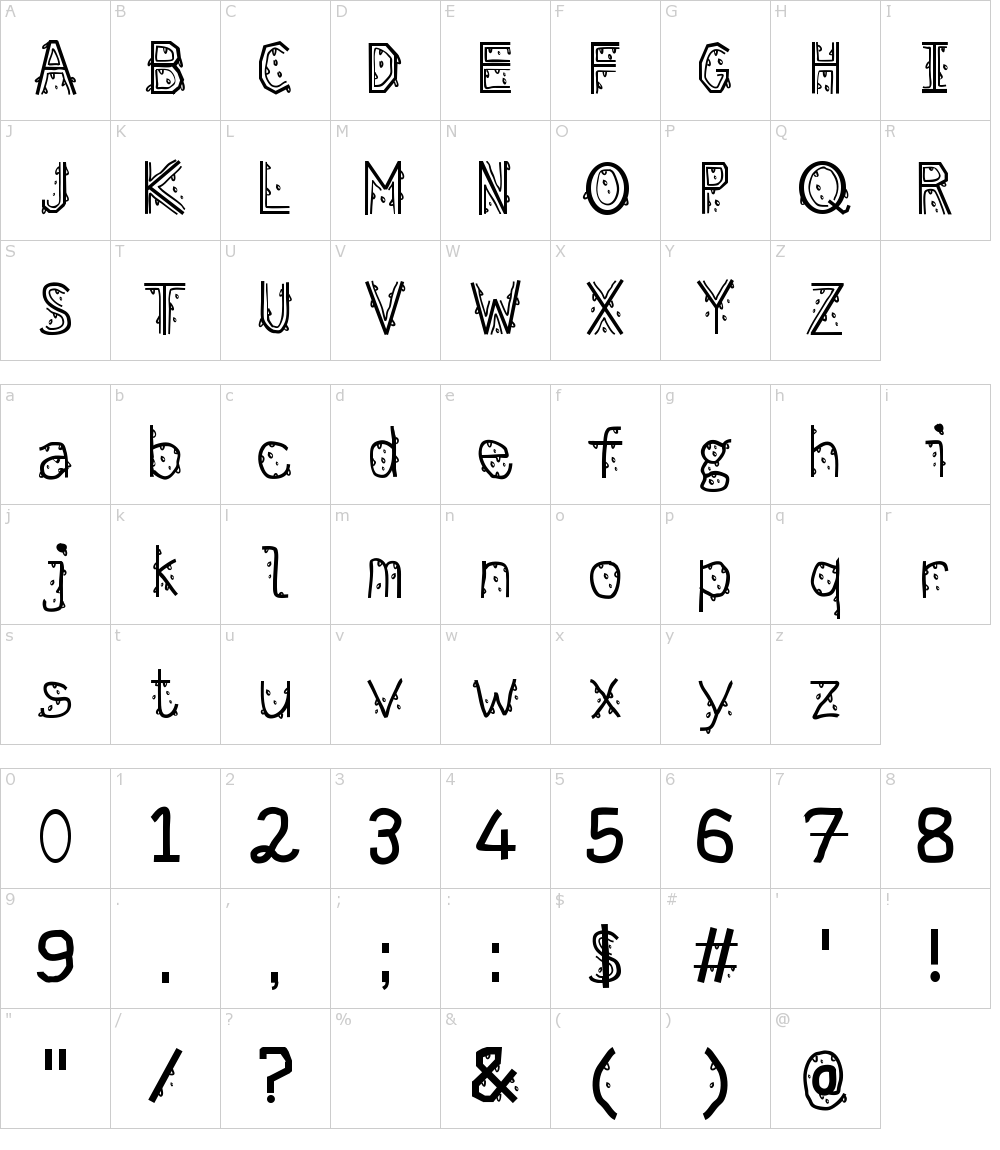
Melting Letters Font Generator
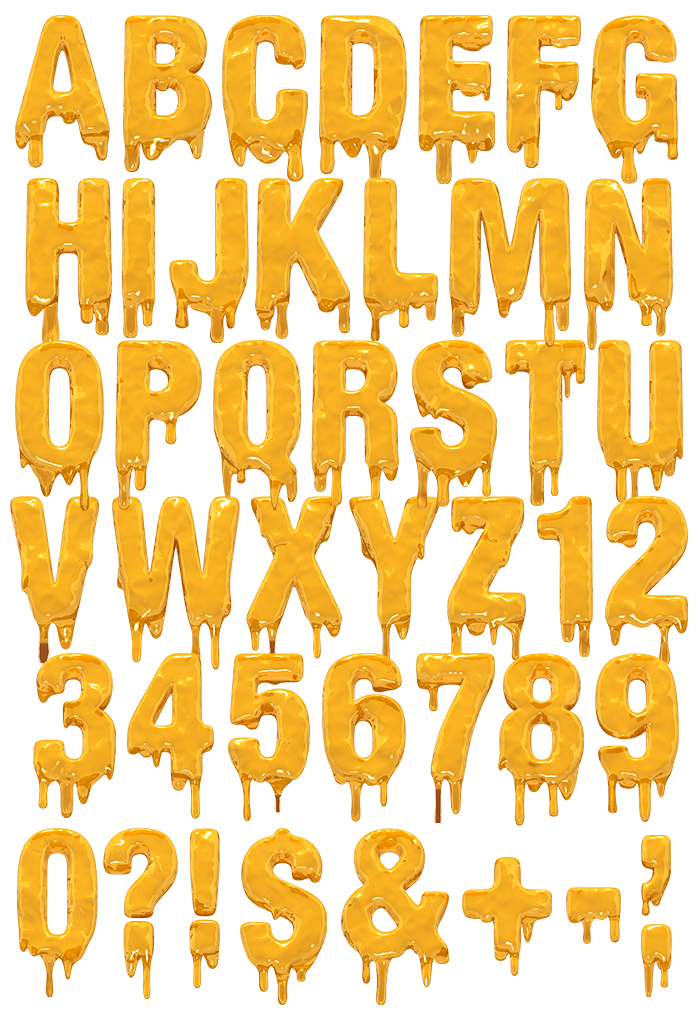
Jd Melted À € By Jecko Development.
Also, The Melting Letter Bold Font Is Perfect For Branding Projects, Housewares Designs, Product.
, Melting Font In Templates.
Dripping fonts have letters that look like they are wet or have liquid flowing down them. Give your texts a radical change with our flipped fonts and letters, inverted and rotated in any direction. Death note font generator about fonts pool text generator is an amazing tool, that help to generate images of your own choice fonts.